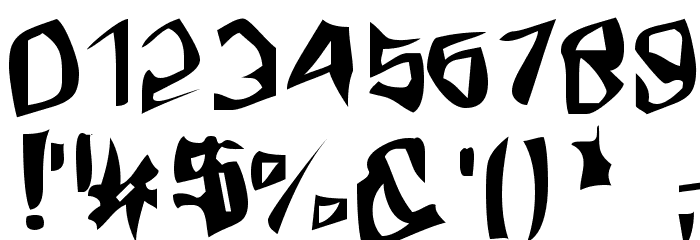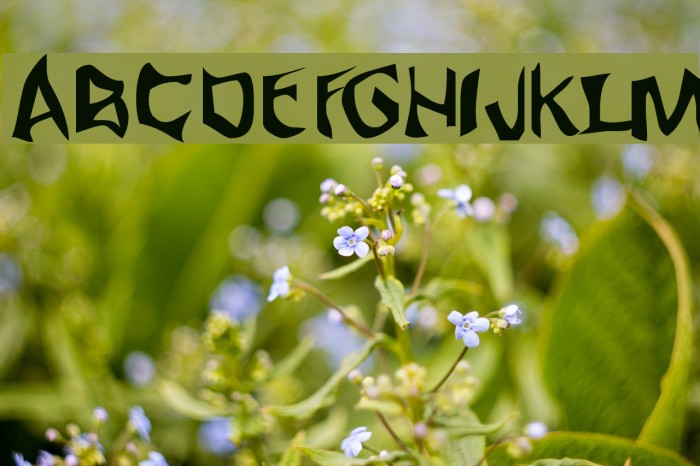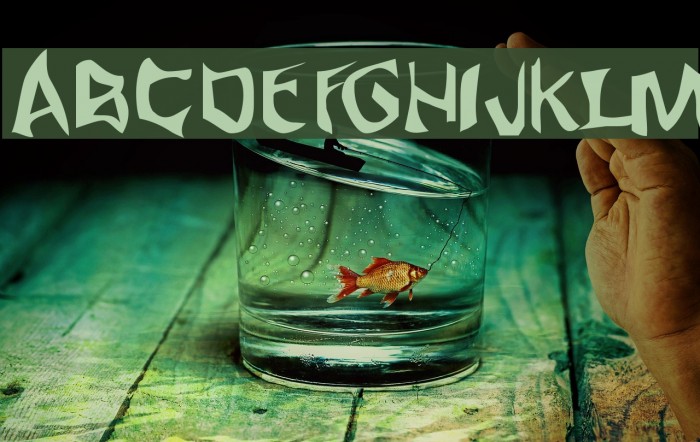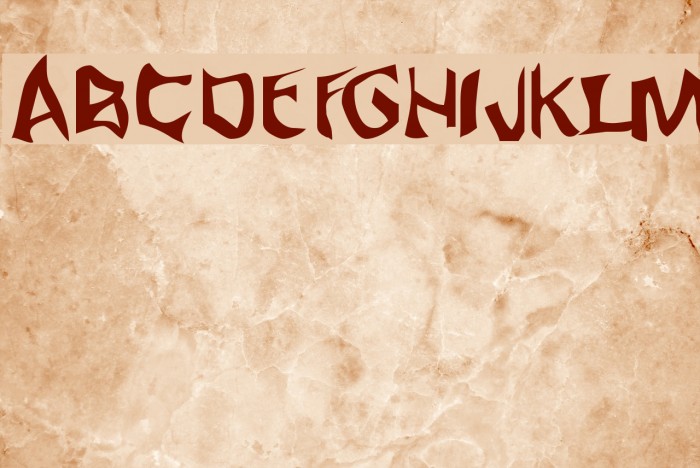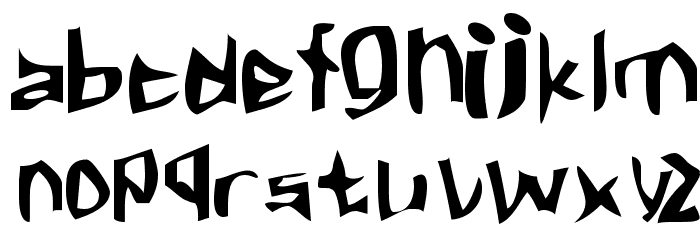
Fargas Font
Fargas Description
This font features a bold and dynamic style with sharp, angular edges and a slightly aggressive appearance. The uppercase letters are particularly striking, with exaggerated curves and points that give them a unique, almost tribal look. The lowercase letters maintain this boldness but with a slightly more subdued flair, making them more readable while still retaining the font's distinctive character. The numbers and special characters follow suit, with a consistent design that ties the entire set together. The overall impression is one of energy and movement, making it ideal for attention-grabbing designs.